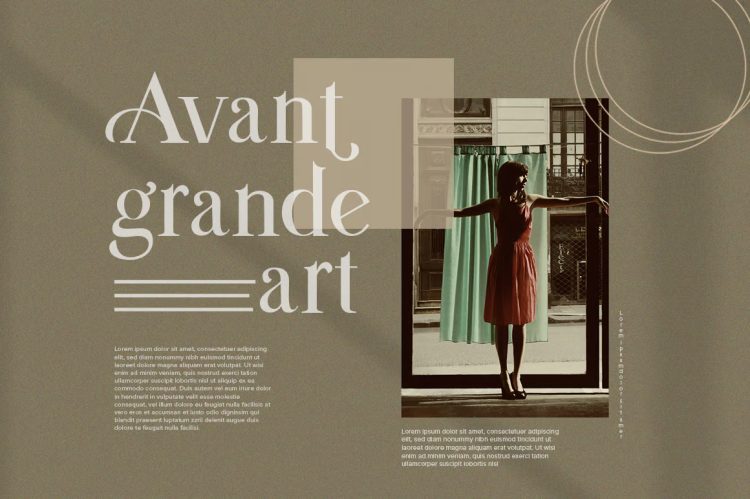
Are you looking for a modern and elegant serif font? We can help! Try to download our Modern Serif font. The font is suitable to use for all purpose. Try to use it on Wedding invitation, summer occasion, greeting card, poster, postcard, photography, branding, editorial, event and fashion.
- Basic Latin A-Z and a-z
- Numbers
- Punctuation
- Alternate With Tails
- Multilangual Support